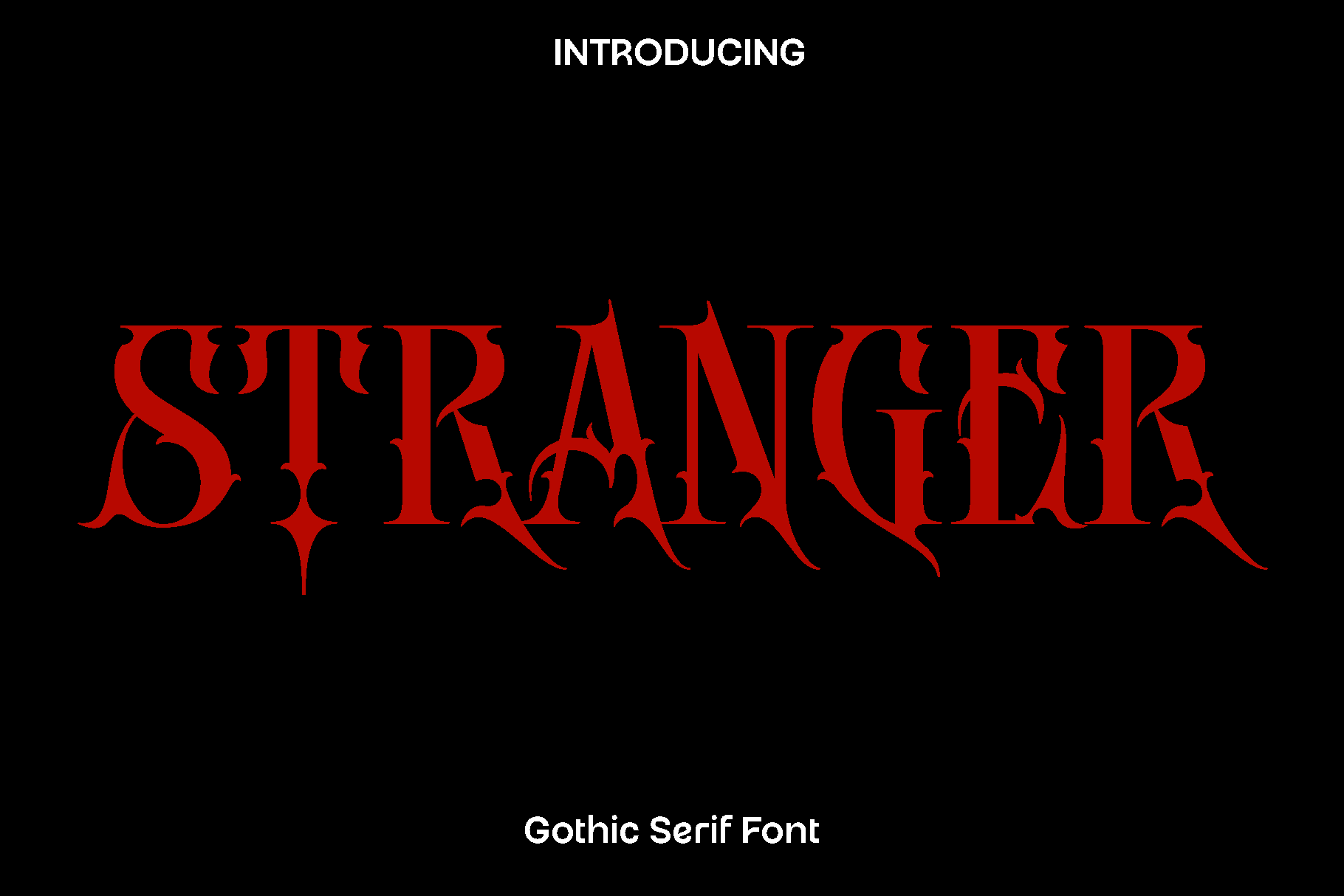
Stranger - Gothic Serif Font
Stranger is a bold gothic metal display font crafted to bring intensity, attitude, and dark artistic energy into your designs. Inspired by underground music culture, heavy metal aesthetics, and dramatic gothic visuals, Stranger carries a strong personality that instantly commands attention. Its sharp edges, expressive forms, and rebellious style make every letter feel powerful and alive.
This font is designed for creators who want to push boundaries and create striking visuals. Stranger shines in band logos, album covers, merchandise, posters, tattoo designs, and dark themed branding. It is also a perfect choice for illustration projects and horror inspired artwork where bold typography plays a central role. Whether used for headlines or graphic compositions, Stranger adds a raw and edgy character that stands out.
Stranger feels intense, mysterious, and unapologetically bold. It transforms ordinary text into a statement piece, giving your designs a unique identity rooted in alternative and gothic culture. With its versatile alternates and strong visual presence, this font allows you to experiment and create expressive typographic layouts with ease.
Stranger Gothic Metal Font Features:
• Uppercase and lowercase characters
• Numerals and functional punctuation
• Multilingual support
• Uppercase alternate 1 and alternate 2
• Strong gothic metal style letterforms
Stranger is the perfect choice for designers looking to add dark energy, attitude, and artistic depth to their work.